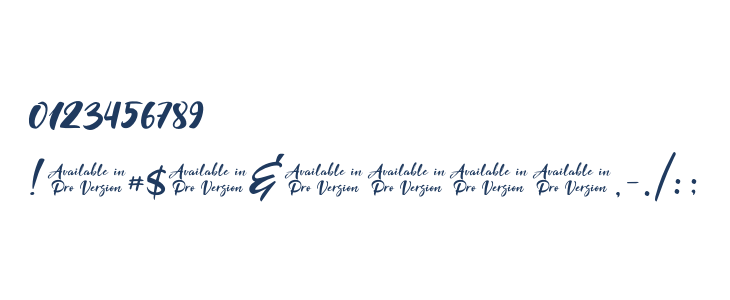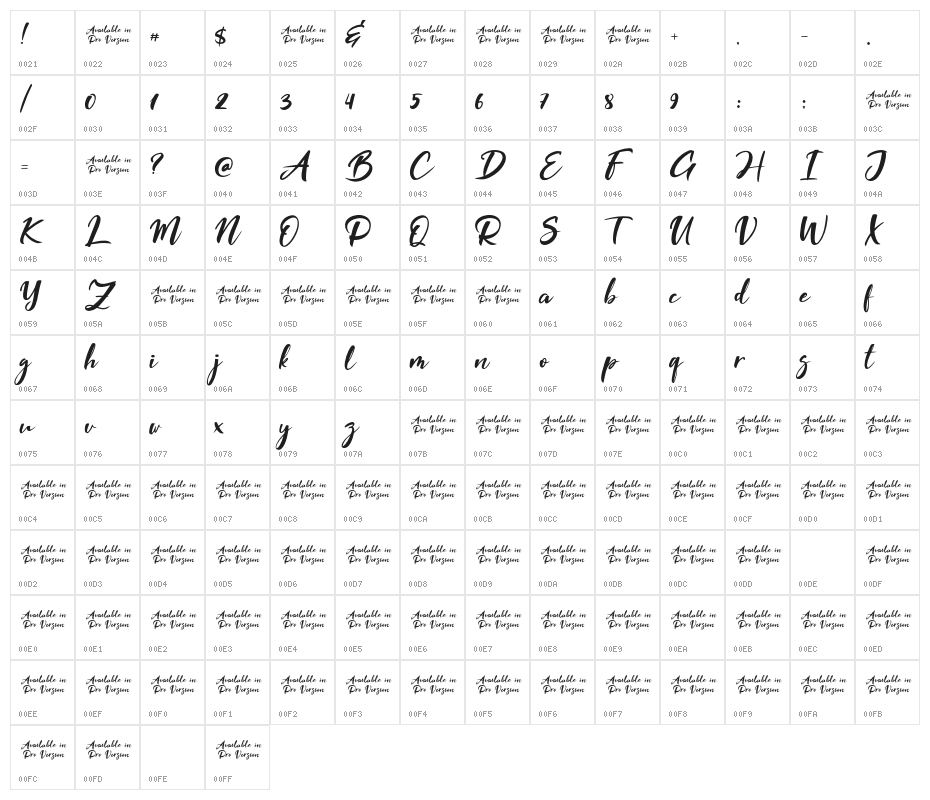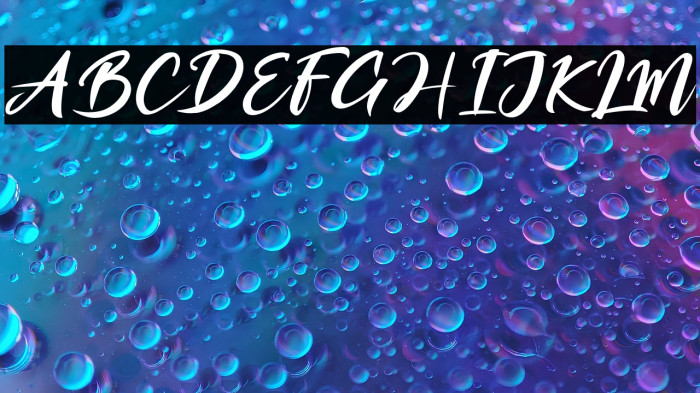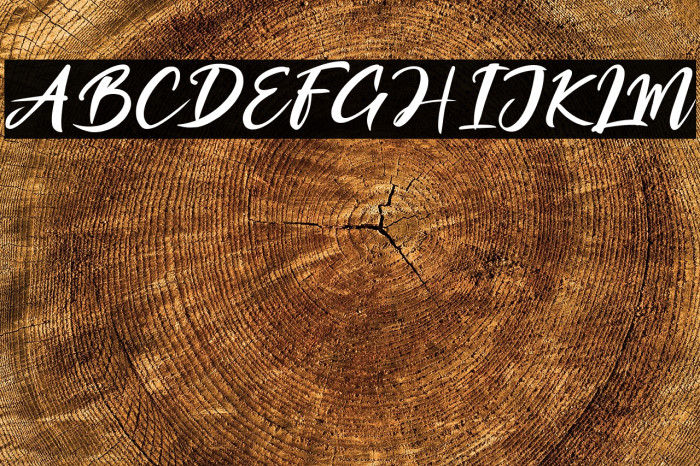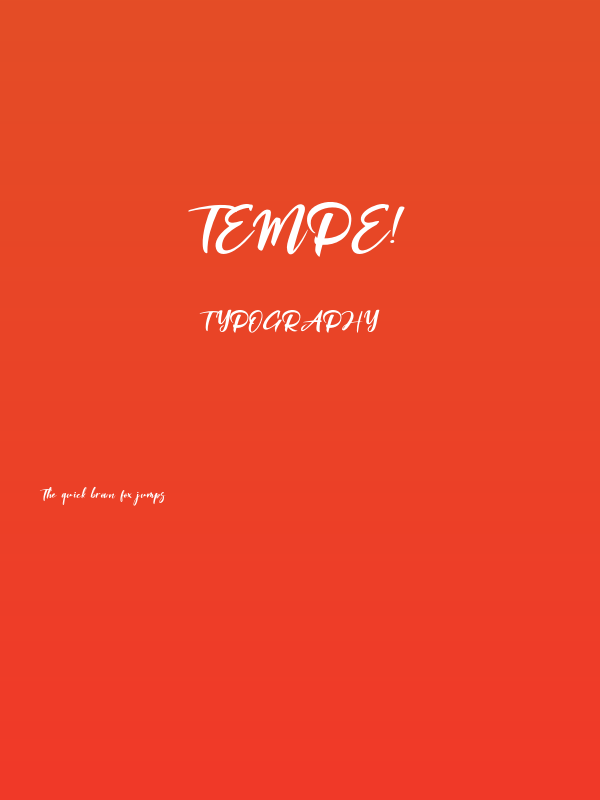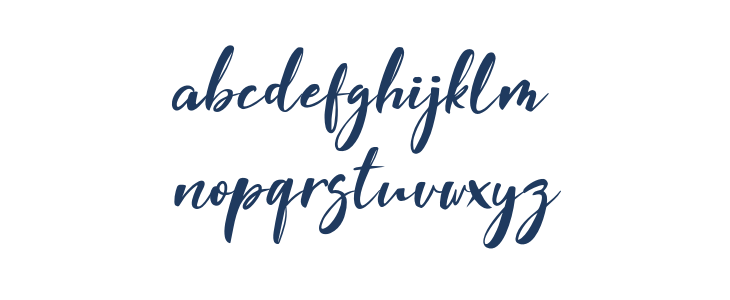
Tempe! Font
✎ Script
Tempe! Description
This font features a dynamic and expressive script style, characterized by fluid, sweeping strokes that convey a sense of elegance and movement. The uppercase letters are bold and prominent, with distinctive flourishes that add a touch of sophistication. The lowercase letters maintain a consistent flow, enhancing readability while preserving the artistic flair. Numbers and special characters are crafted with the same attention to detail, ensuring a cohesive look across all elements. The overall design is both modern and timeless, making it suitable for a variety of creative applications.
| Use Case | Logos, Headlines, Invitations |
| Proposed Projects | Ideal for wedding invitations, branding projects, logo design, and elegant stationery. |